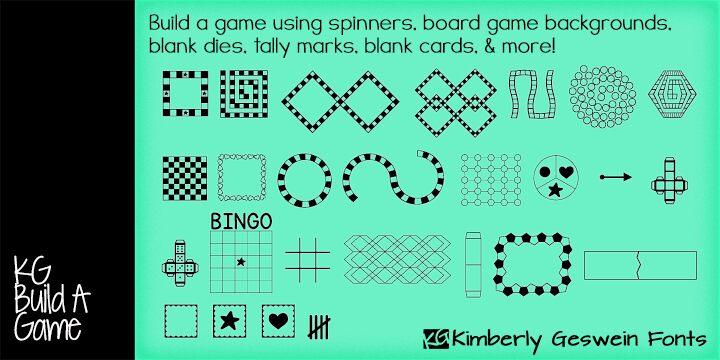
KG Build a Game, a free game-themed dingbat font by Kimberly Geswein, collects board outlines, maze-like paths, grids, and playing-piece shapes. Its drawings range from dense patterned frames to spare geometric diagrams. Checkerboard edges and hand-drawn contours give the set a lively craft-table character.
Printed games are their clearest home, especially classroom activity sheets and homemade board games. They also supply motifs for children's invitations and puzzle books. The set is strongest when symbols become actual game components.